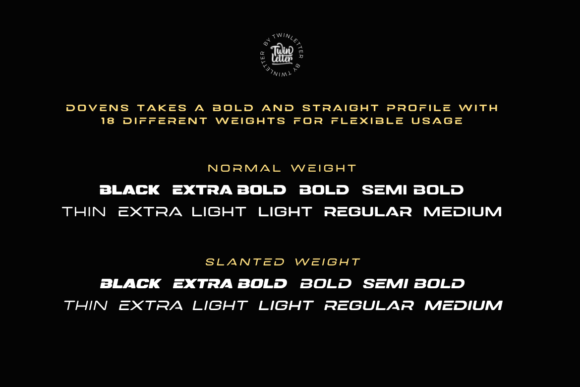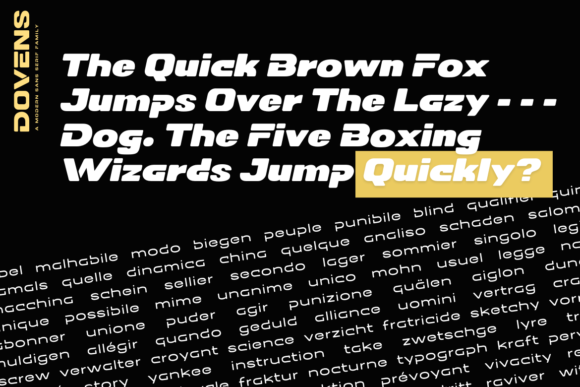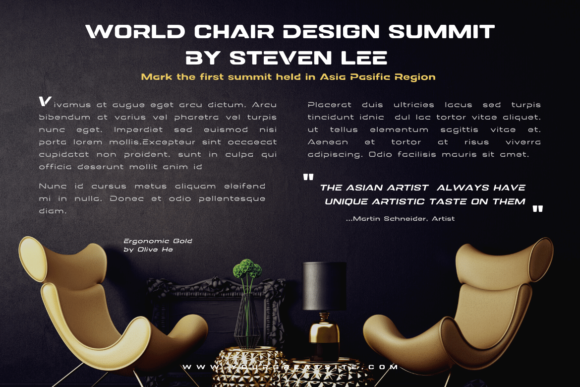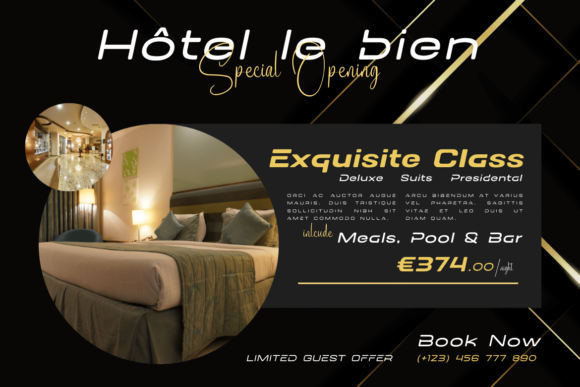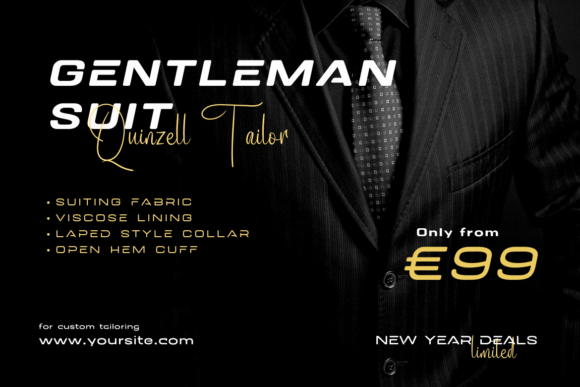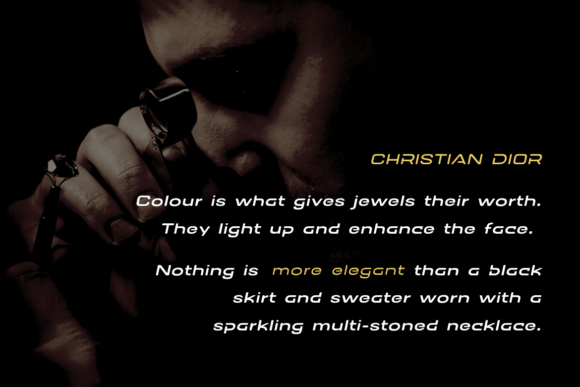
The Designer’s Delight: Unleashing the Power of Dovens Font
I’ll never forget the time I was working on a vintage-themed branding project for a client, and I just couldn’t seem to find the perfect font. The design was supposed to evoke a sense of nostalgia and sophistication, but every font I tried seemed either too bland or too over-the-top. That’s when I stumbled upon Dovens Font, and let me tell you, it was love at first sight! 💕
Dovens is a cool, bold, and vintage-styled display font that’s perfect for adding a touch of elegance and whimsy to your designs. In this article, I’ll share my honest review of Dovens, provide a practical guide on how to use it, and explore some similar fonts you might love.
What I Love About Dovens Font ✨
- 💥 **Bold and eye-catching**: Dovens Font is perfect for making a statement in your designs. Its bold and chunky letters demand attention and add a level of sophistication to any project.
- 🎨 **Versatile**: Despite its bold nature, Dovens Font is surprisingly versatile and can be used in a variety of design contexts, from logos and branding to posters and social media graphics.
- 🕰️ **Vintage vibe**: The font’s vintage inspiration adds a unique touch to your designs, making them stand out from the crowd.
- ✅ **Easy to read**: Despite its boldness, Dovens Font is surprisingly easy to read, even at smaller sizes.
- ⚠️ **Limited use for body text**: While Dovens Font is amazing for headlines and titles, it’s not the best choice for body text due to its bold nature.
- 🤔 **Some letters may require adjusting**: Depending on the word or phrase you’re typing, you might need to adjust the letter spacing to get the desired look.
- Take advantage of OpenType features like glyphs and stylistic alternates to add more personality to your text.
The Story Behind Dovens Font
Dovens Font was inspired by the classic typography of the 1950s and 60s. Its creator, a passionate designer, wanted to capture the essence of vintage advertising and packaging in a modern font that would be perfect for designers and crafters alike. With its bold, chunky letters and elegant lines, Dovens Font is sure to add a touch of nostalgia and sophistication to any design.
Q: What is Dovens Font?
A: Dovens Font is a cool, bold, and vintage-styled display font perfect for adding a touch of elegance and whimsy to your designs.
Q: Is Dovens Font easy to read?
A: Yes, despite its bold nature, Dovens Font is surprisingly easy to read, even at smaller sizes.